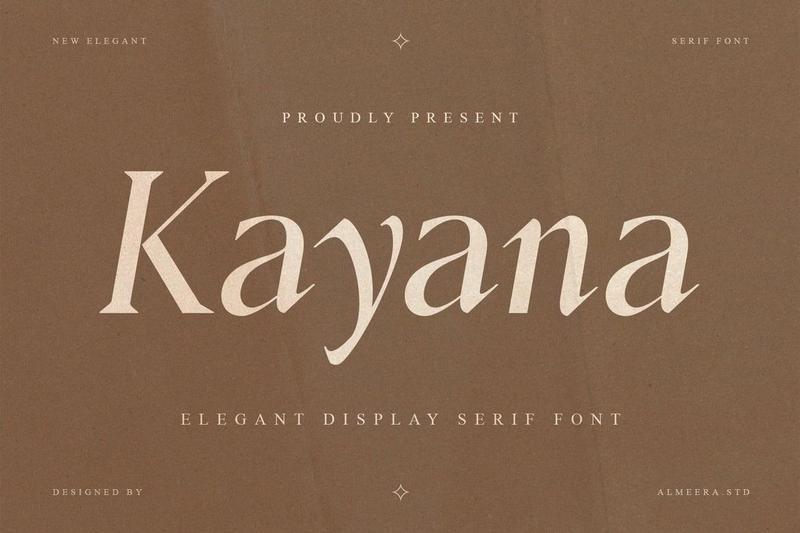
Kayana is an elegant display serif font that combines graceful curves, refined contrast, and contemporary sophistication. Designed with soft transitions and distinctive serif details, Kayana brings a delicate yet confident personality that elevates modern typography.
Its beautifully crafted letterforms create a luxurious and timeless aesthetic, making it ideal for branding projects, logos, editorial layouts, packaging, website headers, invitations, social media graphics, and premium print materials. Kayana offers excellent visual impact while preserving elegance and readability.
Whether used for striking headlines or refined branding applications, Kayana delivers a sophisticated typographic presence that feels modern, artistic, and effortlessly stylish.
Crafted for designers who appreciate elegant details and timeless design, Kayana transforms simple text into memorable visual statements.
– Ideal for large headlines & displays
– High-contrast elegant serif style